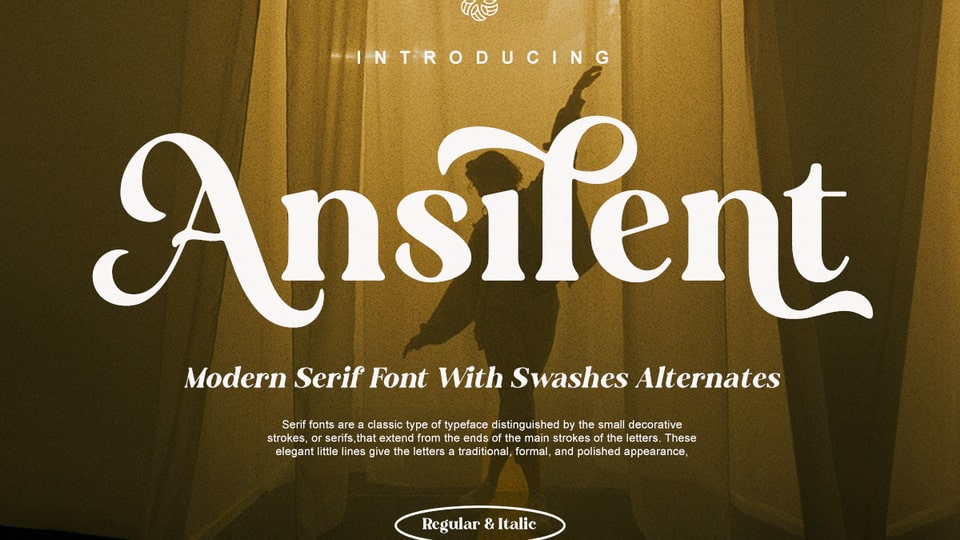
Download Ansilent font, a modern serif typeface with swashes alternates, designed to enhance any creative project. Provides a striking with alternates swashes presence ideal for impactful headlines and logos.